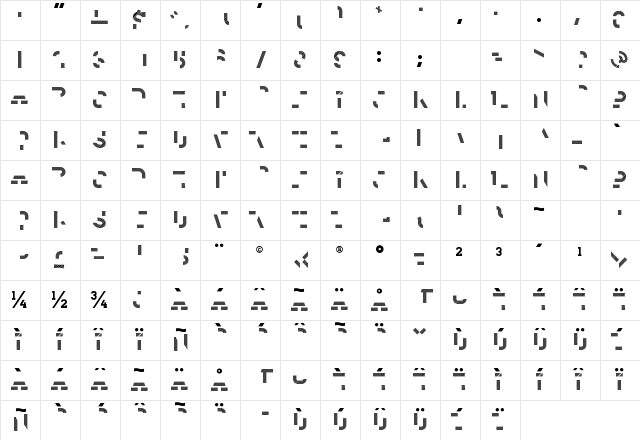
Homestead Two
Style: Two
Foundry: Luke Lisi
Designer: Luke Lisi
Year: 2012
Homestead Family
Homestead Two
Design Context for Homestead
Homestead is a composed and adaptable typeface that performs quietly and consistently across a wide range of design contexts.